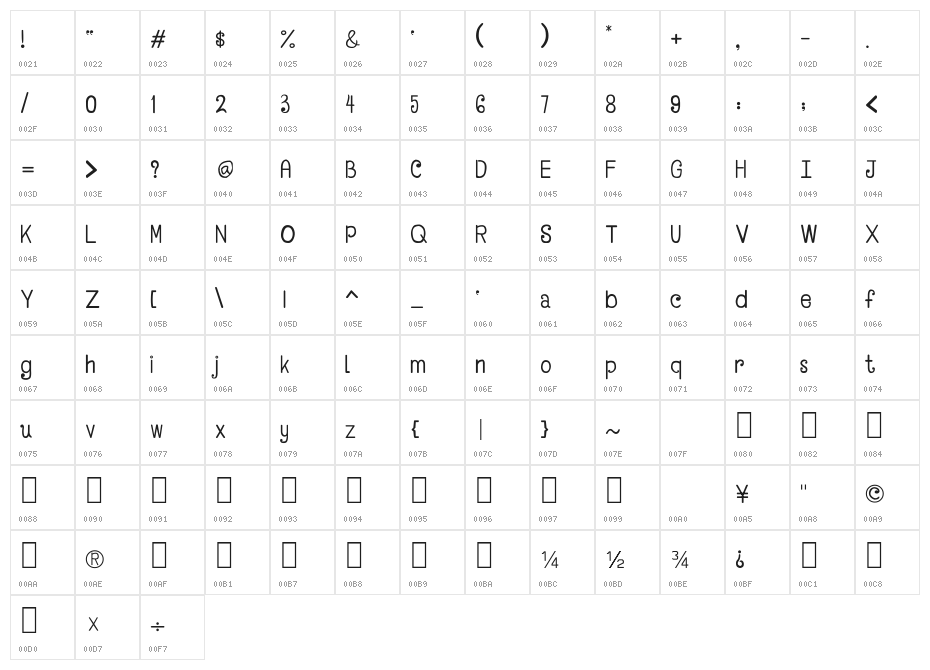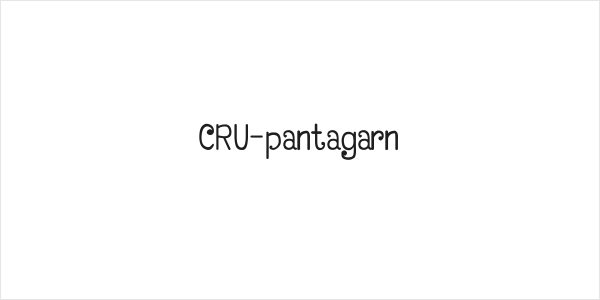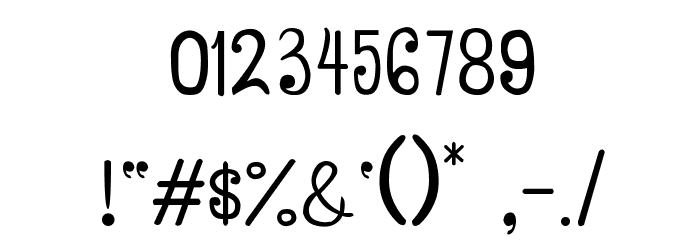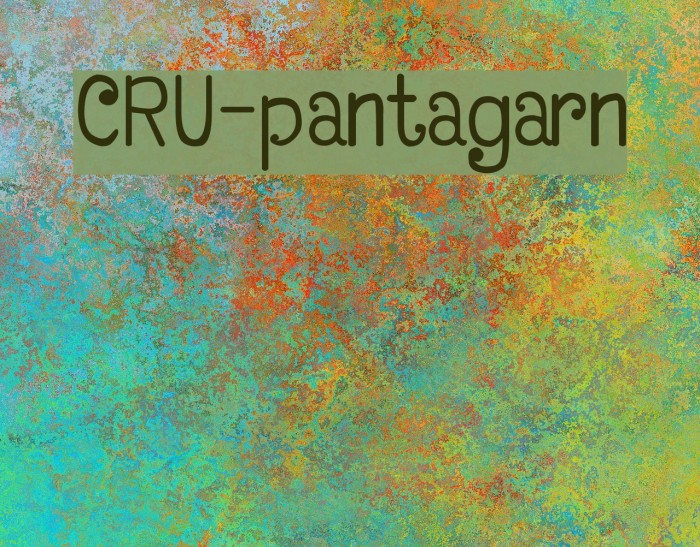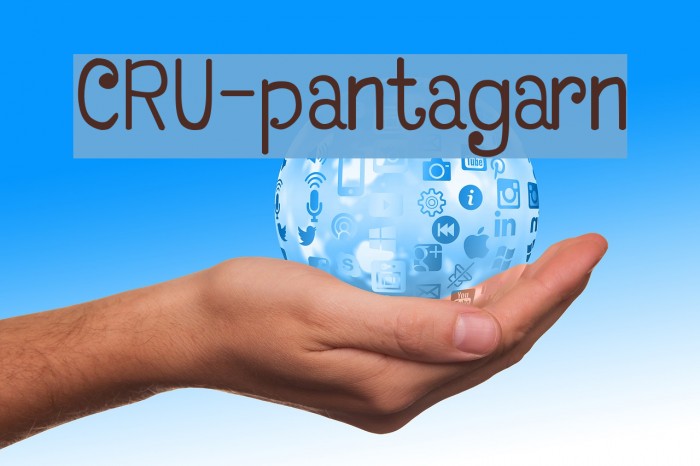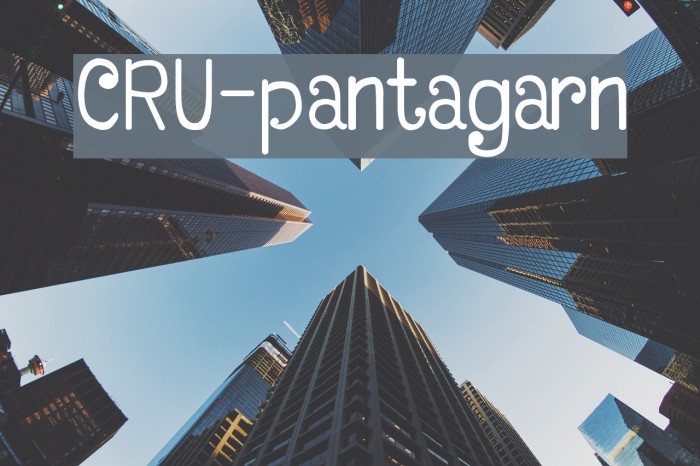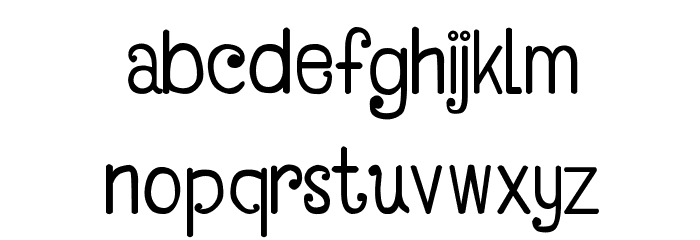
CRU-pantagarn Font
This font features a playful and rounded design, characterized by its smooth curves and consistent stroke width. The uppercase letters are bold and slightly condensed, giving a modern yet approachable feel. Lowercase letters maintain the same rounded aesthetic, with distinctive features such as the looped 'g' and the open 'a'. Numerals are clear and legible, matching the overall style of the alphabet. The special characters are well-integrated, maintaining the font's cohesive look. This font's friendly and inviting appearance makes it suitable for a variety of creative projects.
| Use Case | Headlines, Logos, Casual Text |
| Proposed Projects | Ideal for children's books, playful branding, casual invitations, and social media graphics. |